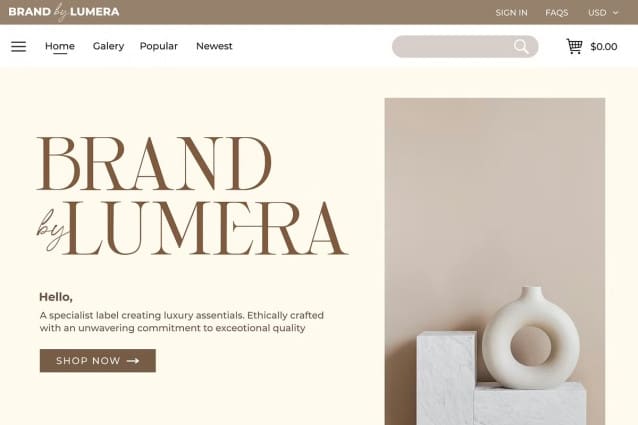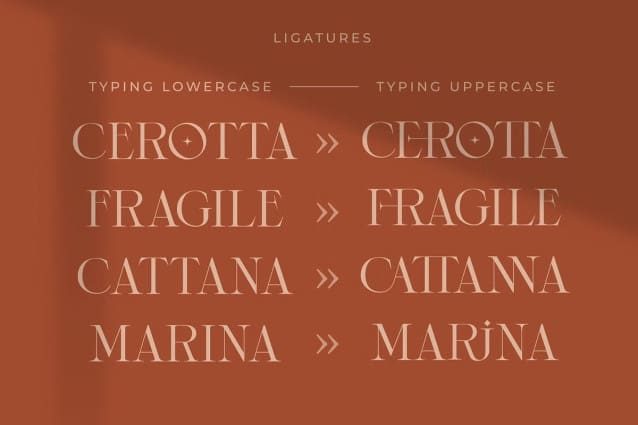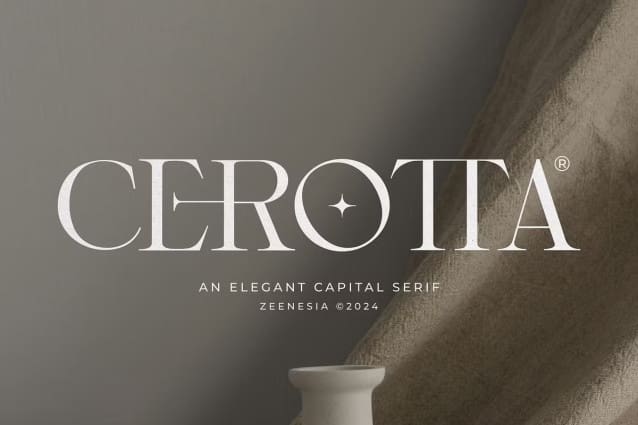
Cerotta Font
Cerotta Font is a beautiful and smooth serif font created by a romantic and lovely look. I created some natural ligatures to make this font very elegant and look so classy. It is perfect for greeting cards, wedding invitations, posters, logotypes, product branding, and much more. This font is PUA encoded, which means you can access all of the glyphs and swashes with ease!